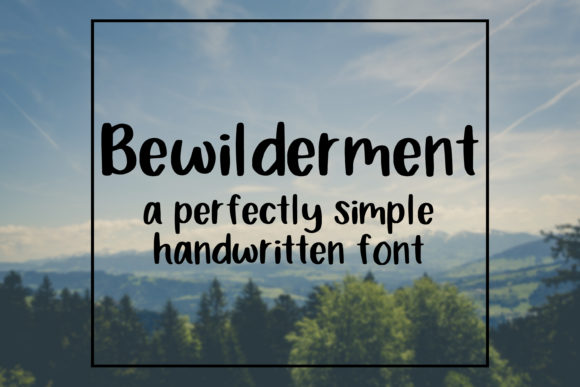
Bewilderment Font: A Simple yet Versatile Hand-Lettered Sans-Serif Font
The Bewilderment font has taken the design world by storm with its perfectly simple handwritten aesthetic. This hand-lettered sans-serif font has captured the hearts of designers and crafters alike, and it’s easy to see why. With its unique blend of elegance and playfulness, The Bewilderment font is an excellent addition to any design project.
What is The Bewilderment Font?
The Bewilderment font is a hand-lettered sans-serif font that exudes a sense of simplicity and sophistication. Its clean lines, subtle curves, and carefully crafted letterforms make it an excellent choice for a wide range of design applications. Whether you’re working on a logo, branding project, or social media graphics, The Bewilderment font is sure to make a lasting impression.
Characteristics of The Bewilderment Font
So, what sets The Bewilderment font apart from other fonts? Here are a few key characteristics that make it so unique:
- Hand-lettered aesthetic: The Bewilderment font is carefully crafted by hand, giving it a unique and personal touch.
- Simple and elegant: The font’s clean lines and subtle curves make it perfect for designs that require a touch of sophistication.
- Versatile: The Bewilderment font can be used for a wide range of projects, from logos and branding to social media graphics and more.
- Easy to read: Despite its elegant aesthetic, The Bewilderment font is highly legible, making it perfect for body text and other applications where readability is key.
Uses for The Bewilderment Font
The Bewilderment font is incredibly versatile, making it suitable for a wide range of design projects. Here are a few ideas to get you started:
- Logo design: The Bewilderment font is perfect for creating unique and memorable logos that stand out from the crowd.
- Branding: Use The Bewilderment font to create a cohesive brand identity that exudes elegance and sophistication.
- Social media graphics: The Bewilderment font is perfect for creating eye-catching social media graphics that grab attention and drive engagement.
- Invitations and events: Add a touch of elegance to your invitations and event materials with The Bewilderment font.
- Crafting and DIY projects: The Bewilderment font is also perfect for crafters and DIY enthusiasts who want to add a personal touch to their projects.
Tips for Using The Bewilderment Font
Here are a few tips to keep in mind when using The Bewilderment font:
- Experiment with different sizes: The Bewilderment font looks great in a variety of sizes, from large headings to smaller body text.
- Pair it with other fonts: The Bewilderment font pairs well with a range of other fonts, so don’t be afraid to experiment with different combinations.
- Use it consistently: To get the most out of The Bewilderment font, use it consistently across your design project.
The Bewilderment font is a simple yet versatile hand-lettered sans-serif font that’s perfect for a wide range of design projects. With its elegant aesthetic, easy readability, and versatility, it’s no wonder that The Bewilderment font has become a favorite among designers and crafters. Whether you’re working on a logo, branding project, or social media graphics, The Bewilderment font is sure to make a lasting impression.
In conclusion, The Bewilderment font is an excellent addition to any design project. Its unique blend of elegance and playfulness makes it perfect for designers and crafters who want to add a personal touch to their work. So why wait? Download The Bewilderment font today and start creating stunning designs that stand out from the crowd!